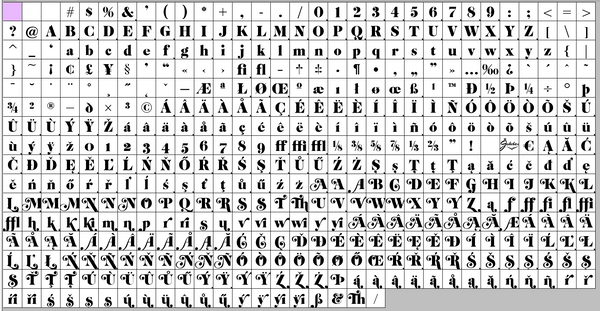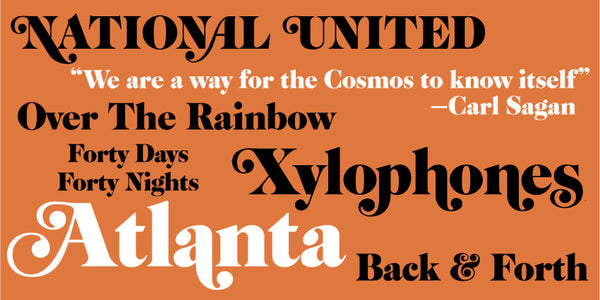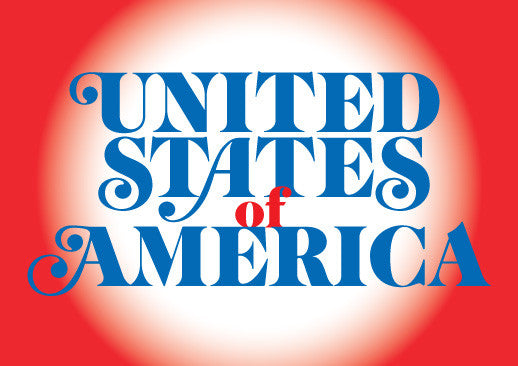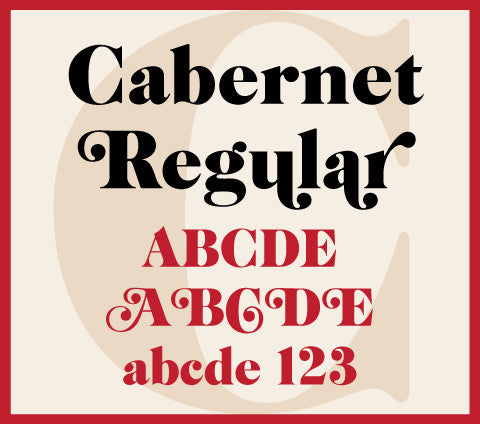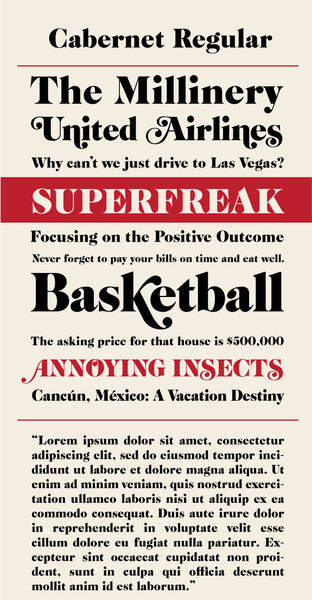
Cabernet Regular
Cabernet Regular is a classic "Caslon" style swash font with heavy contrast between thick and thin. It is a digital revival of an old photo-typositing face from the 1960s. The swash variants add charm and some retro whimsy to this typeface, widely recognized as the "Foxy Brown" font, from the 1974 film.